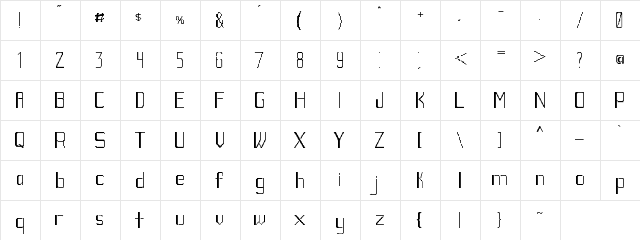
Lissome Regular
| Designer | Rikasha |
Design Context for Lissome Typeface
Lissome takes a measured approach to typography — its balanced proportions and neutral character make it a reliable workhorse for both digital and print work.
Pro Tip: Use Lissome in both headline and body roles to test its range before committing to a single application.